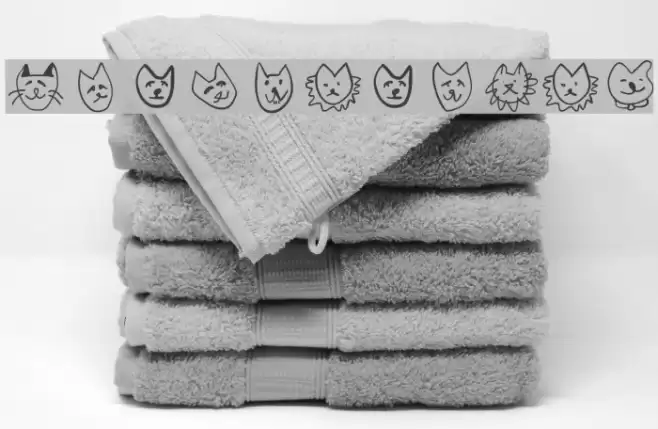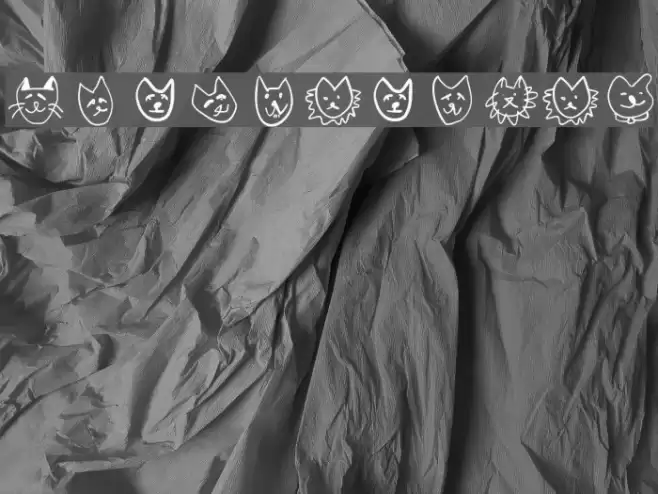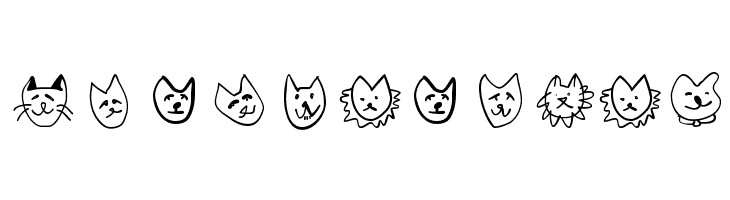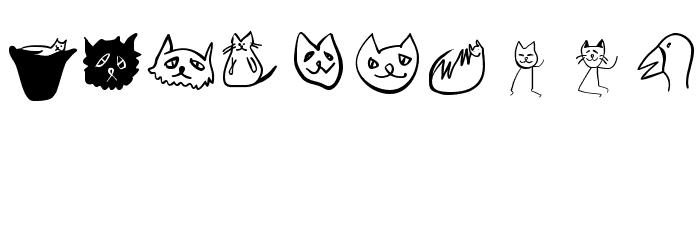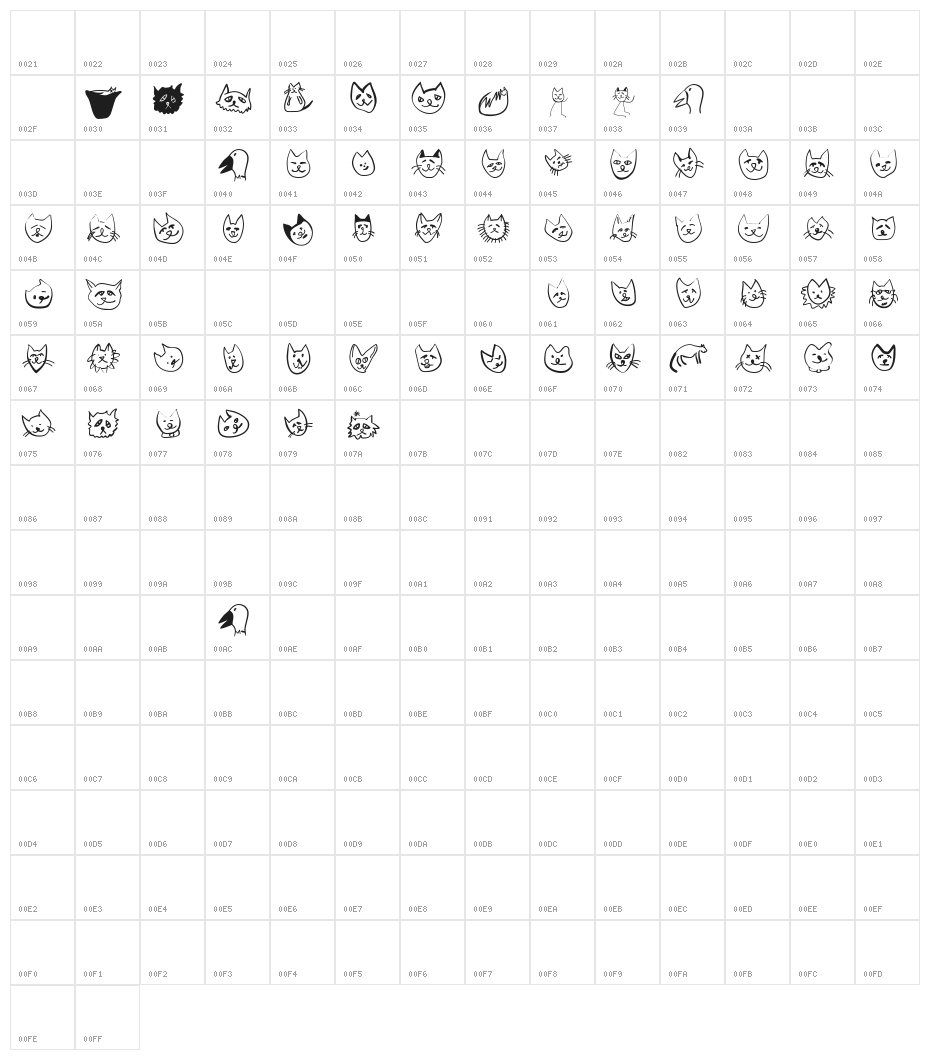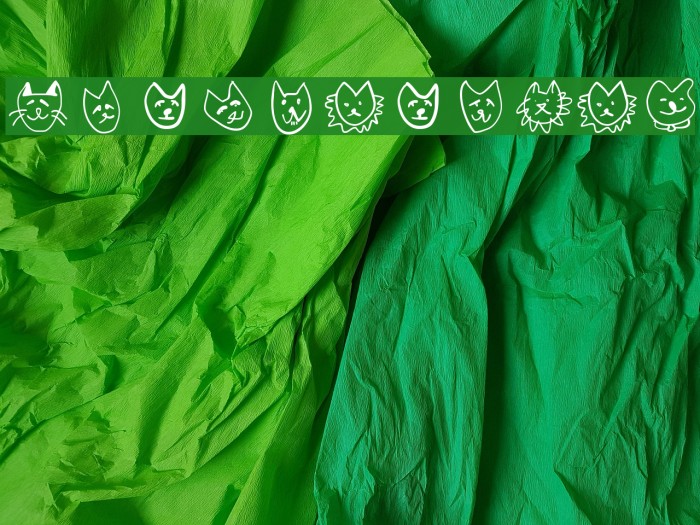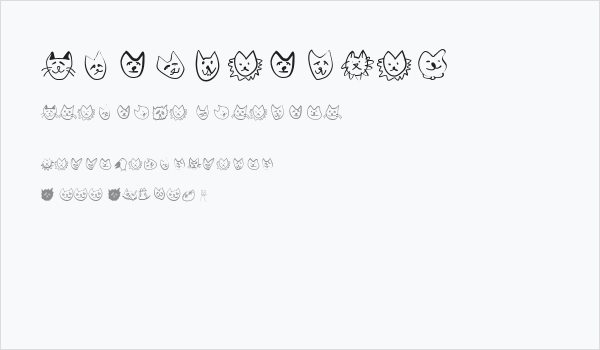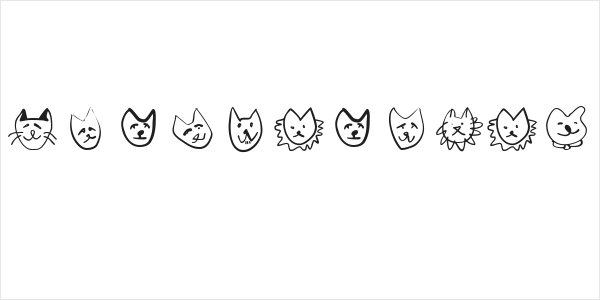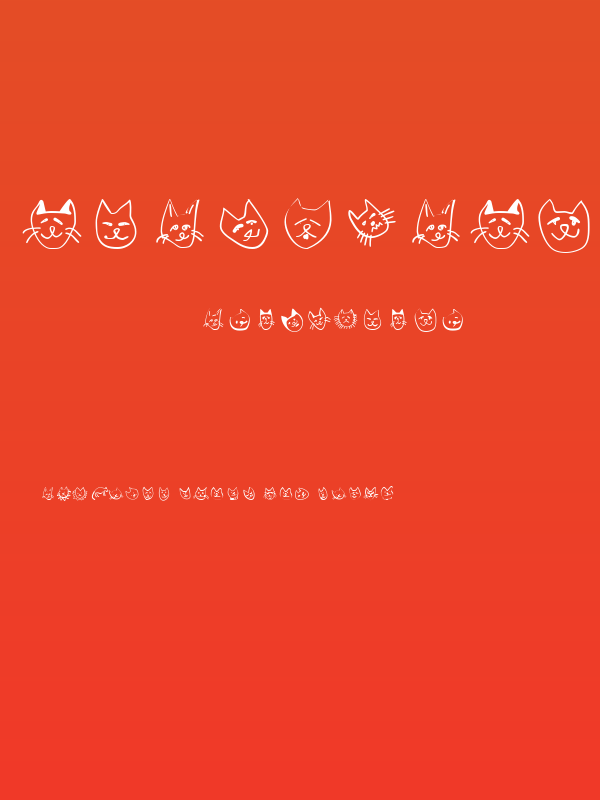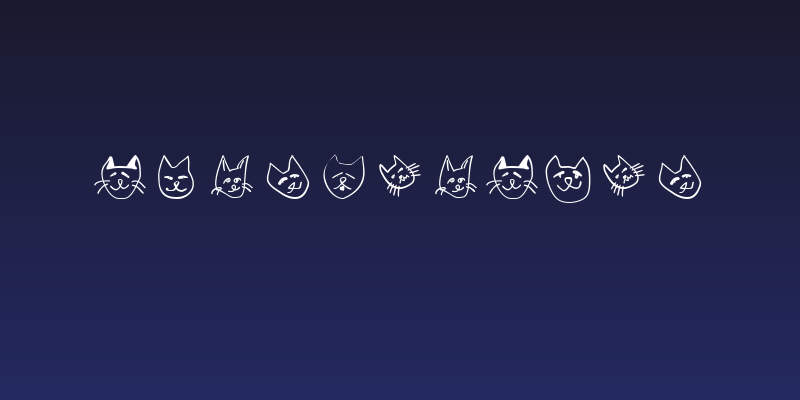
CatSketches Font
CatSketches Description
A whimsical, hand-drawn collection of cat sketches with playful and varied expressions, featuring loose, irregular linework and a casual, illustrative style. Each character is unique, with some full-body and some head-only depictions, emphasizing personality and charm.
Playful hand-drawn cat illustrations with varied expressions from Uncategorized fonts.
- Proposed Projects: Children’s books, greeting cards, playful branding, stickers, social media graphics, pet-related products.
- Character Spacing: Wide
- Overall Style: Whimsical, Playful, Hand-drawn
- Use Case: Illustrations, Decorative accents, Themed branding